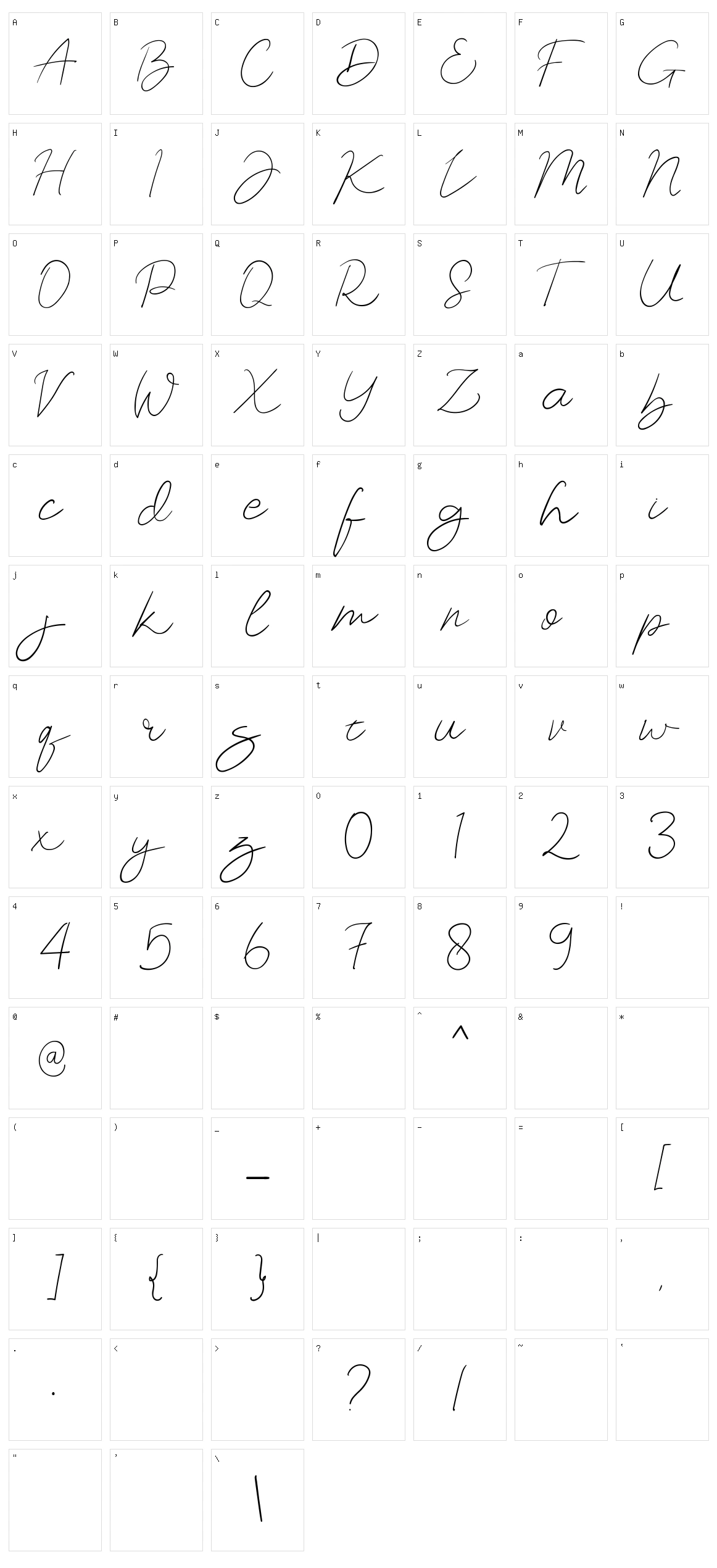
The free font Mishelblanch is carefully designed by Ahmad Kartiwa, showcasing a thoughtful balance of creativity and usability and falls under the Script font style. When you download the ZIP file, it contains only 21.13 KB of font files, making it lightweight and quick to download. Please review the license details below to understand permitted usage and distribution rights. If license information is not available, we recommend using this font for personal projects only or contacting the author directly for commercial usage permissions.